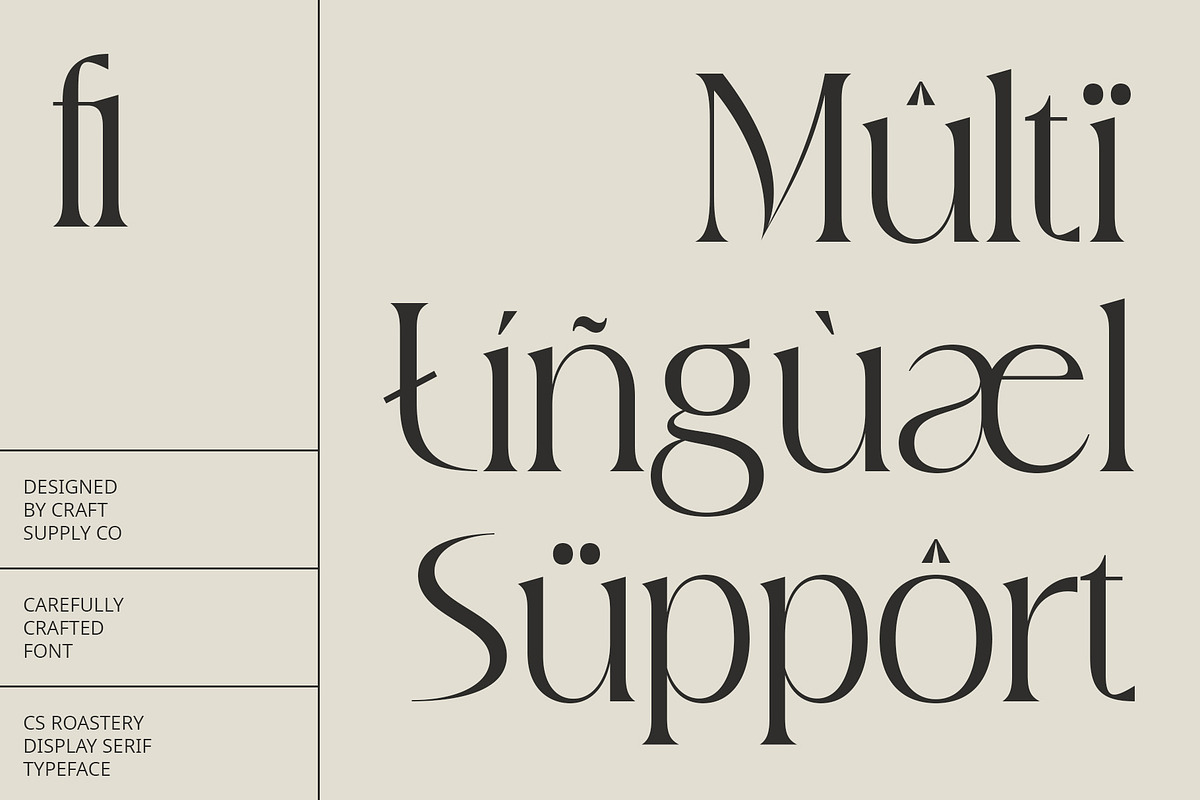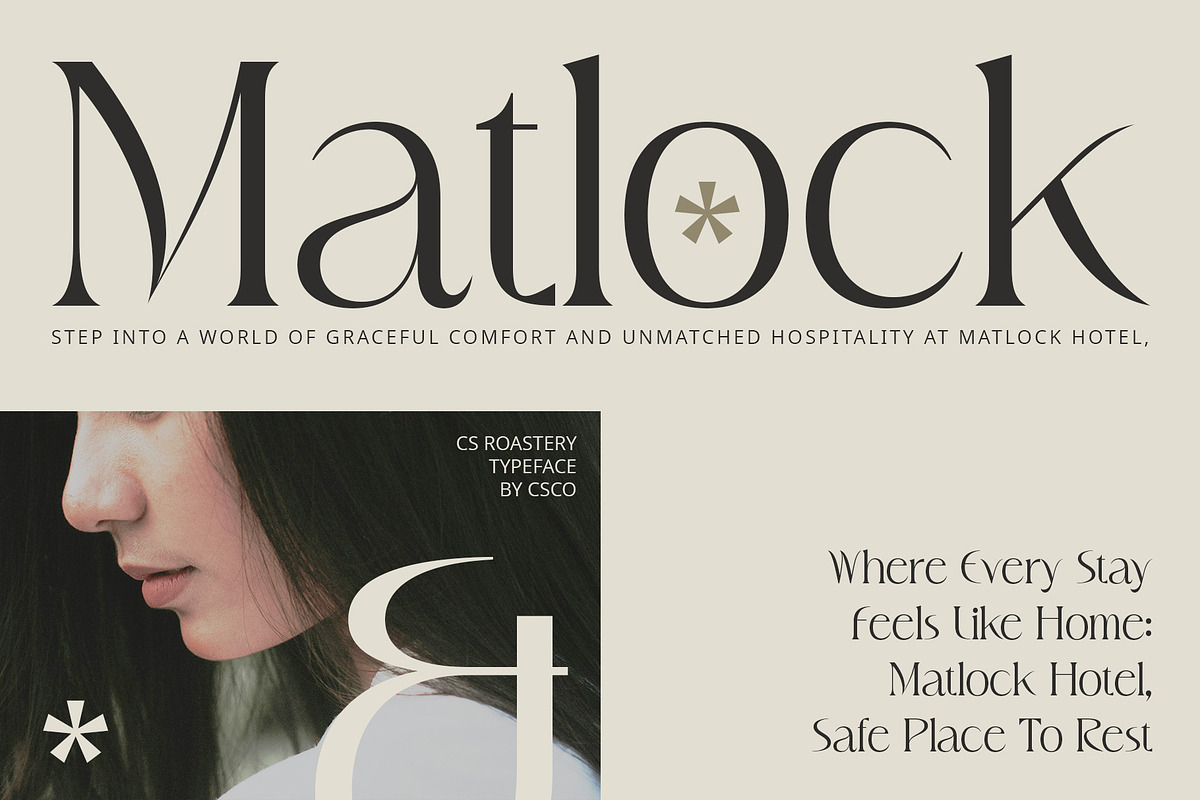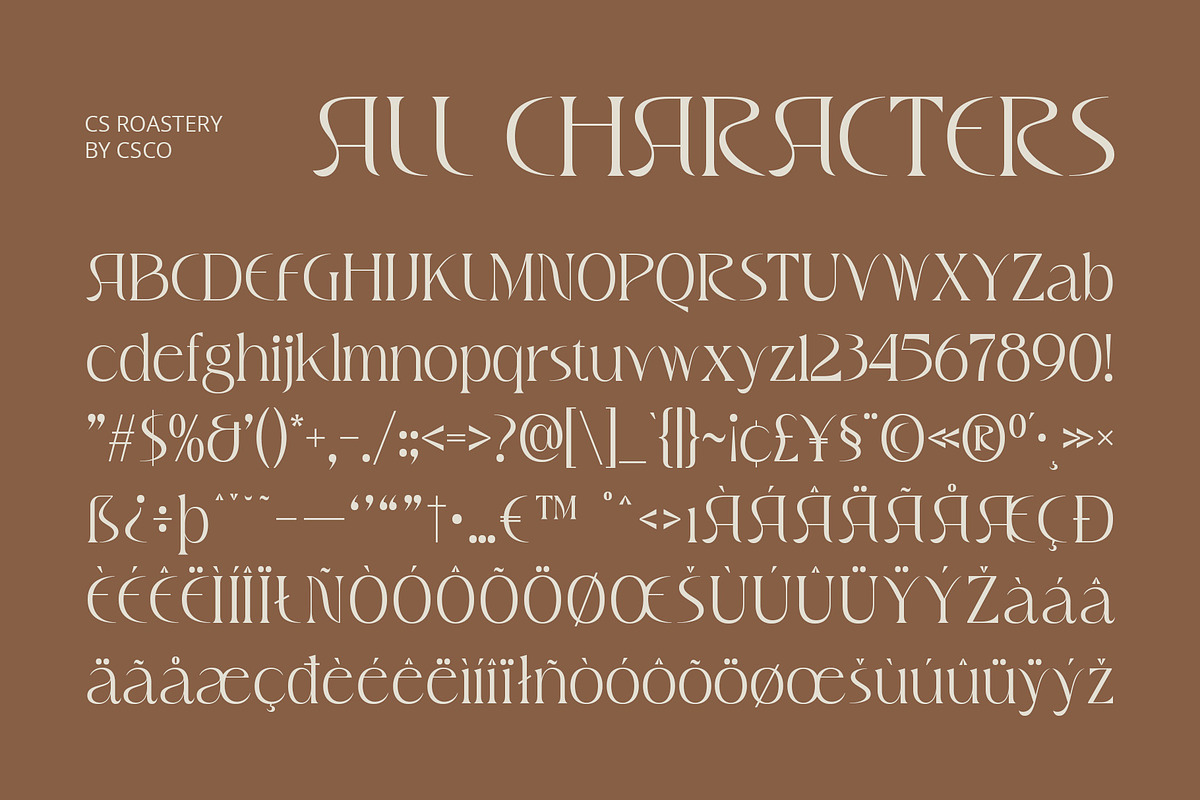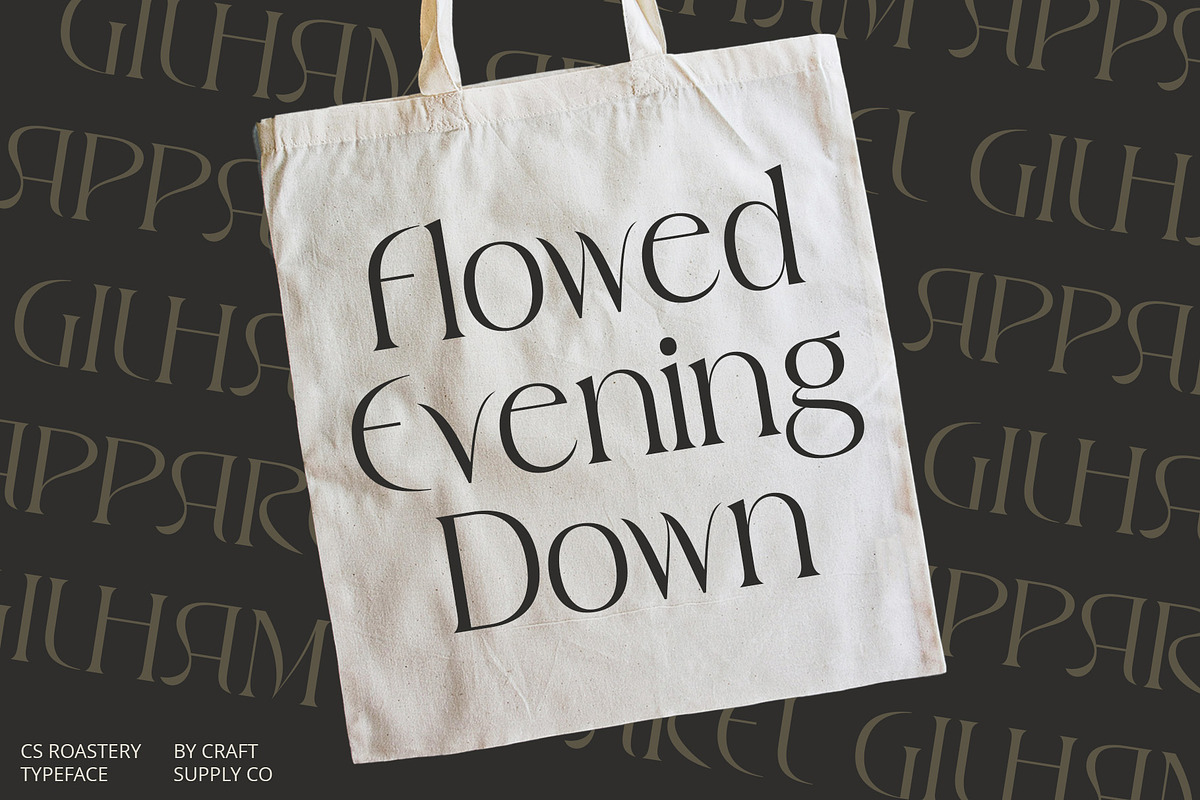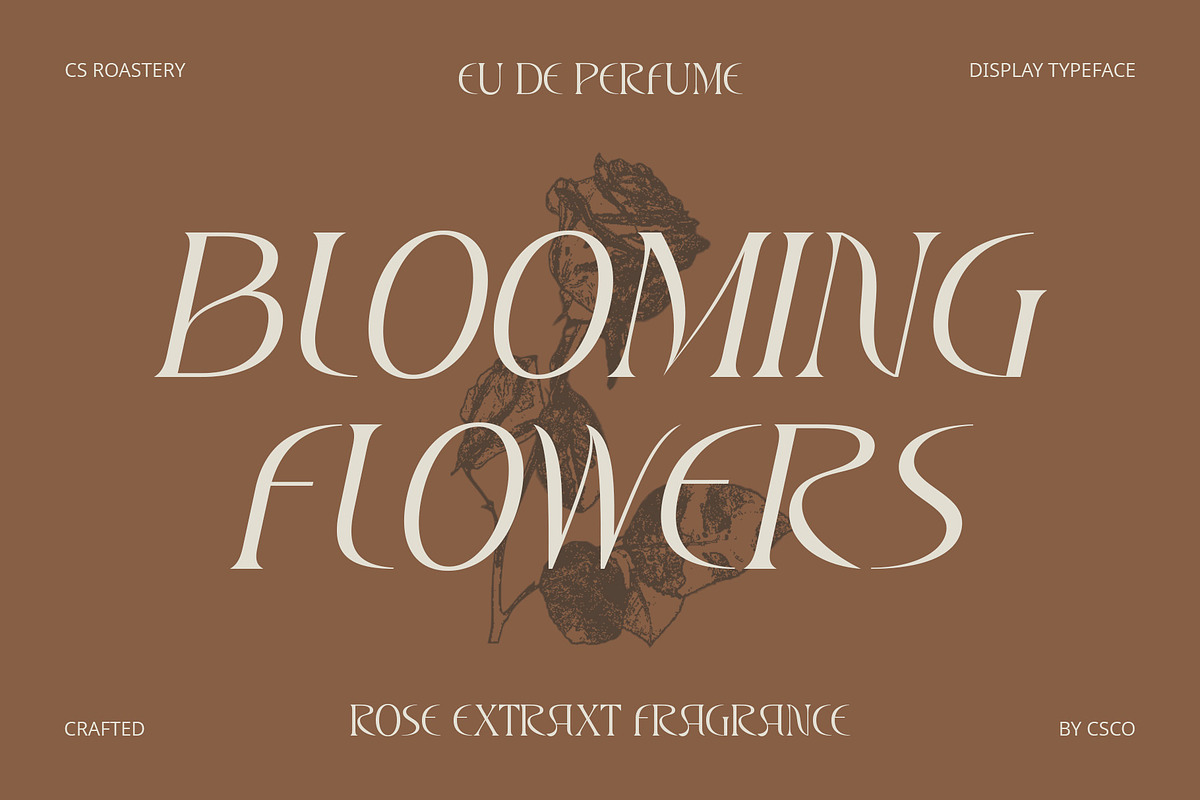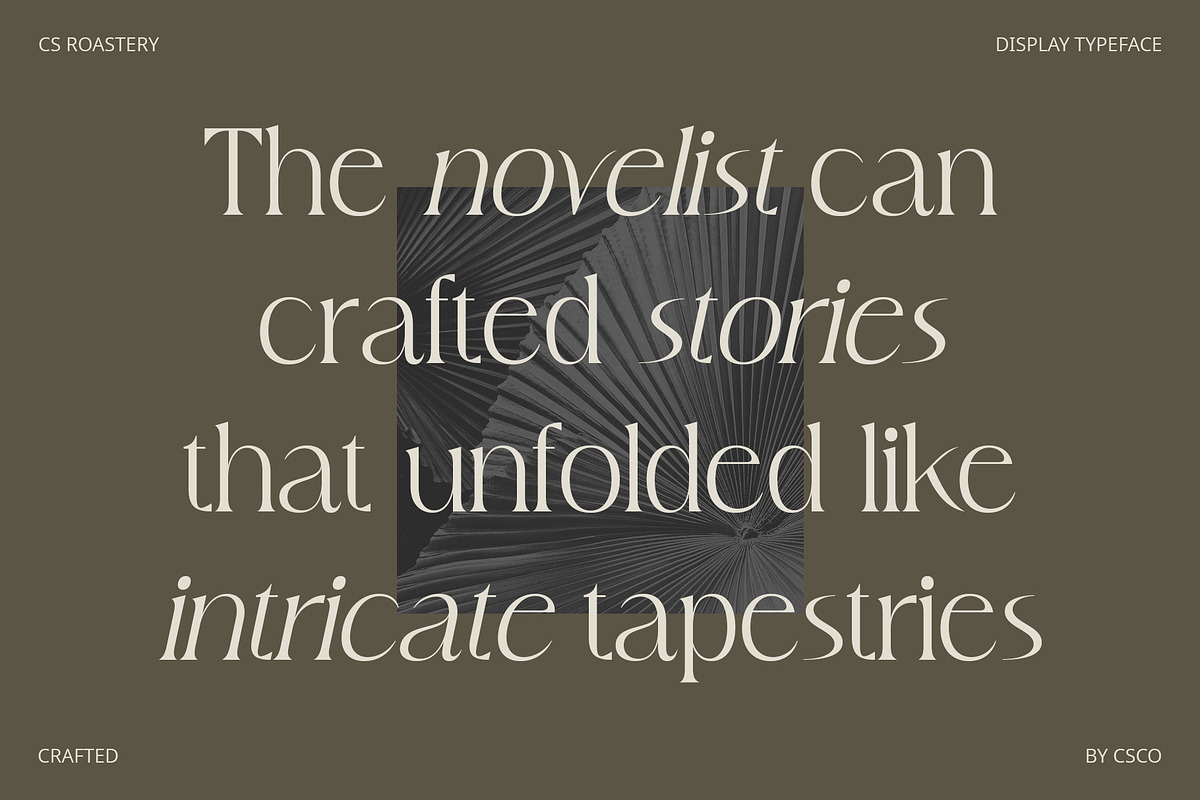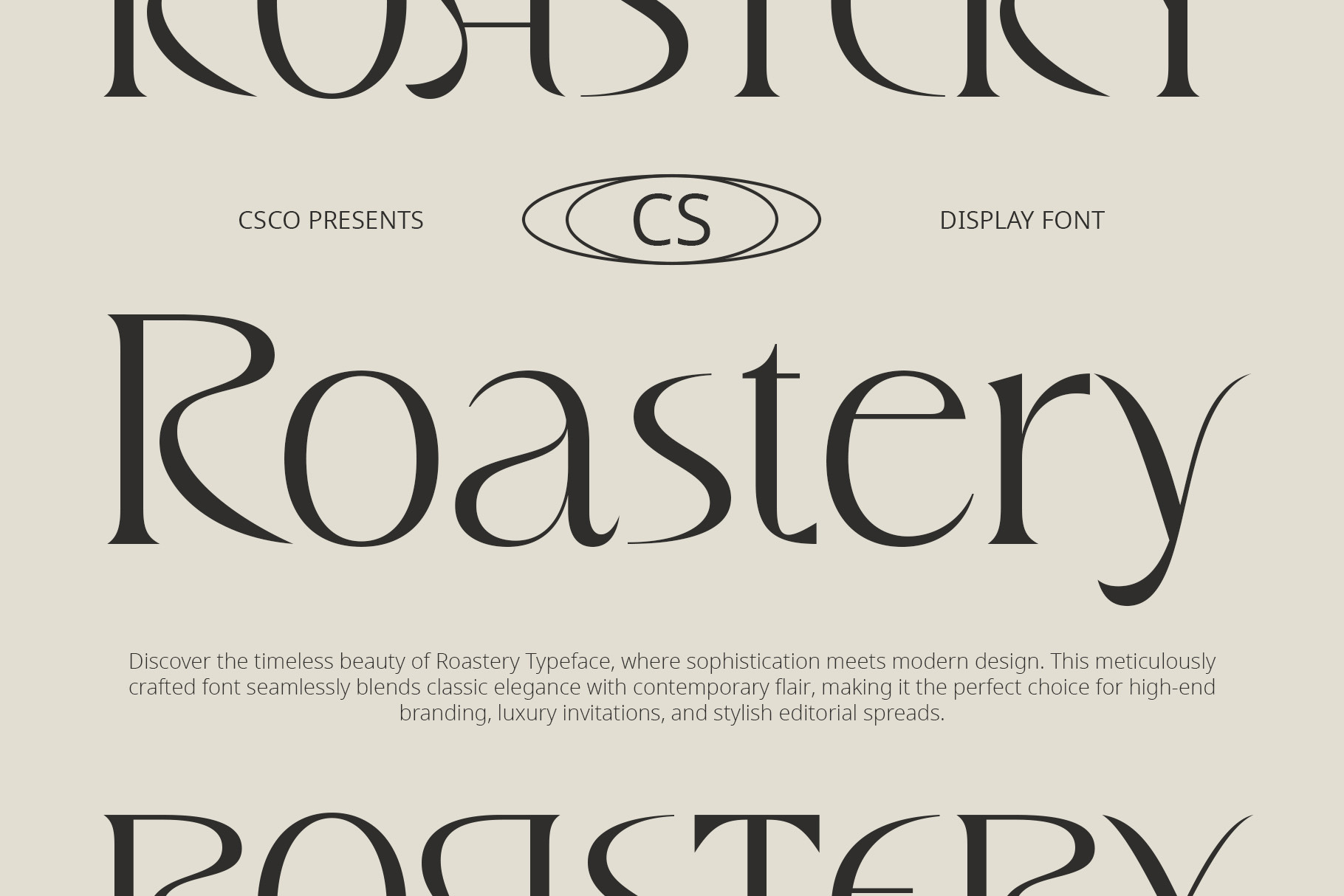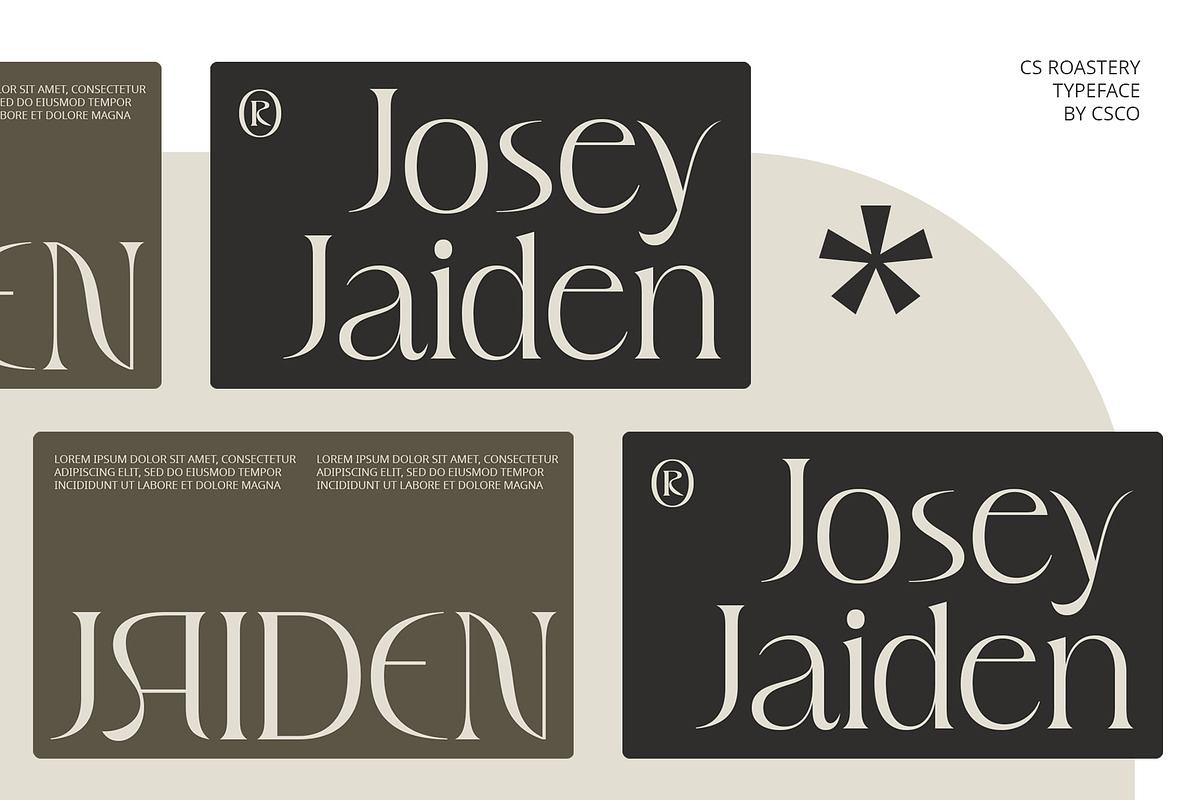
CS Roastery – Elegant Font
CS Roastery – Elegant Font: Classic Sophistication with a Modern Twist
Introduction CS Roastery is a modern display serif font that exudes elegance and sophistication. Ideal for designs that require a classic yet contemporary feel, this font adds a luxurious and professional impression to any project.
Modern Serif Design CS Roastery features a modern display serif design that blends classic elements with a contemporary twist. Its clean lines and balanced proportions create a harmonious look that is both timeless and modern.
Elegant Touch The elegant touch of CS Roastery sets it apart, making it ideal for projects that demand a refined and sophisticated look. Whether used in editorial layouts, branding, or packaging, this font adds a touch of class to any design.
Ideal for Luxurious Designs CS Roastery is perfect for designs that aim to convey luxury and sophistication. Its elegant design makes it suitable for high-end branding, fashion, and lifestyle projects where a luxurious impression is key.
Enhance Your Designs with CS Roastery With its classic sophistication and modern flair, CS Roastery can elevate your designs and add a touch of elegance. Whether you’re designing for print or digital media, this font is sure to make a statement and leave a lasting impression.